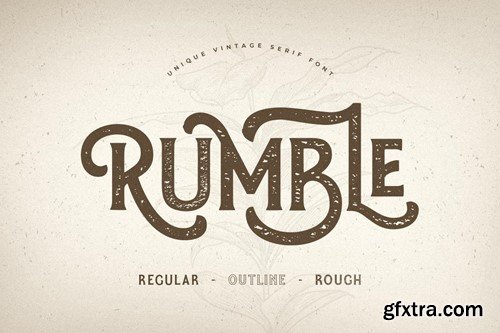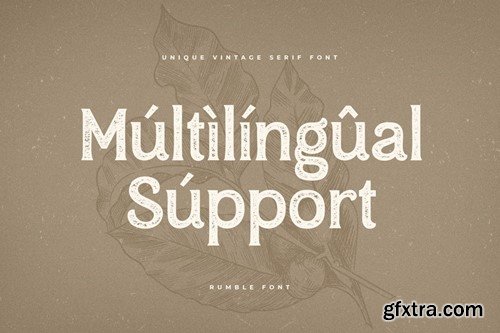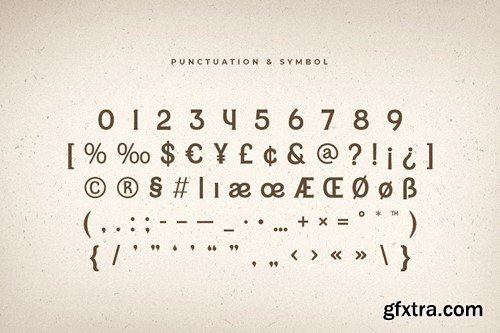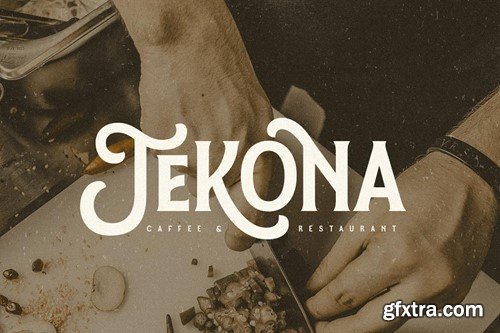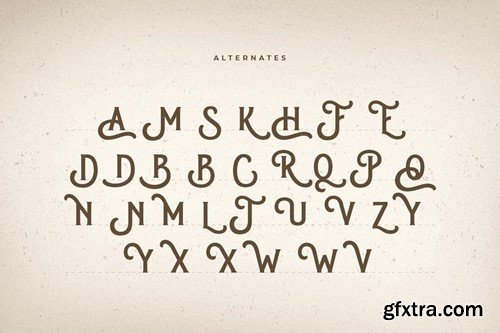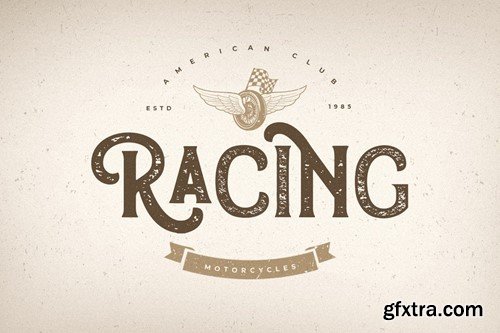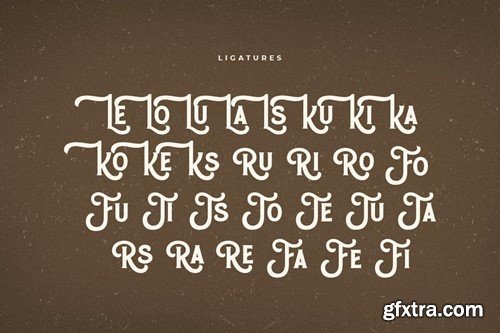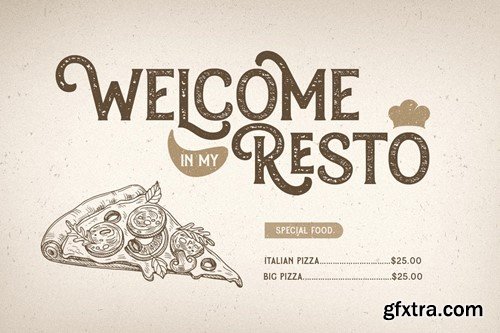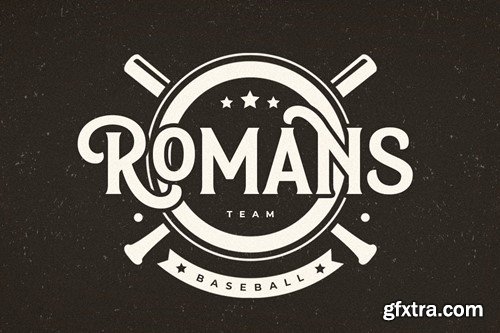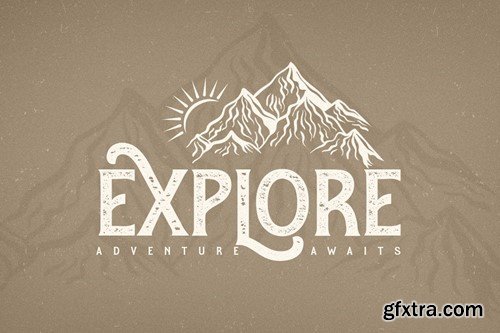
Rumble - Unique Vintage Serif Font
Rumble is an Unique Vintage Serif Font. A New Vintage font that we created special for Unique branding needs, with extra rough and outline style that ready to add value of your brand. It's so nice to leverage designer or product owner that need solutions to make their design look more unique and vintage.
Rumble Unique Vintage Serif Font ready with:
• Lowercase and Uppercase characters
• Regular, Outline, and Rough Style
• Numbers and Punctuations